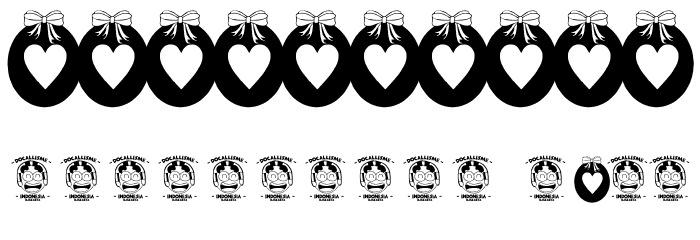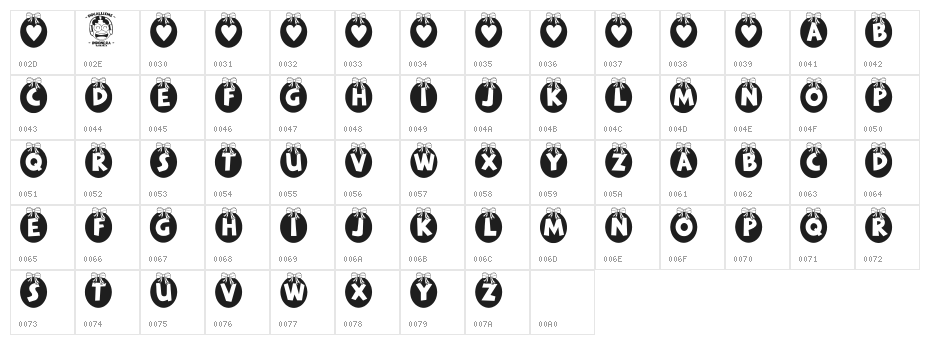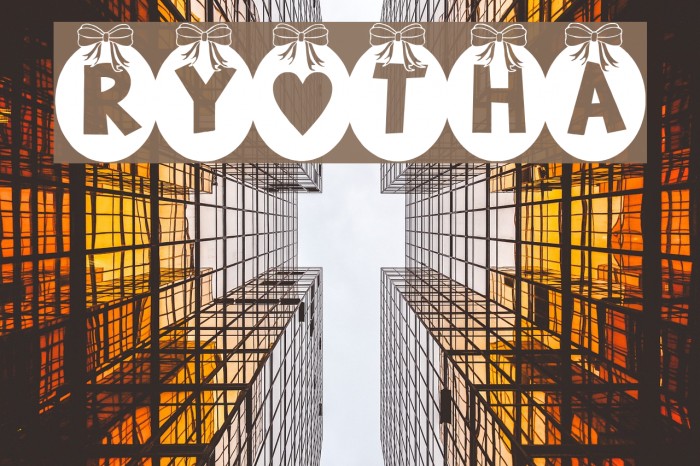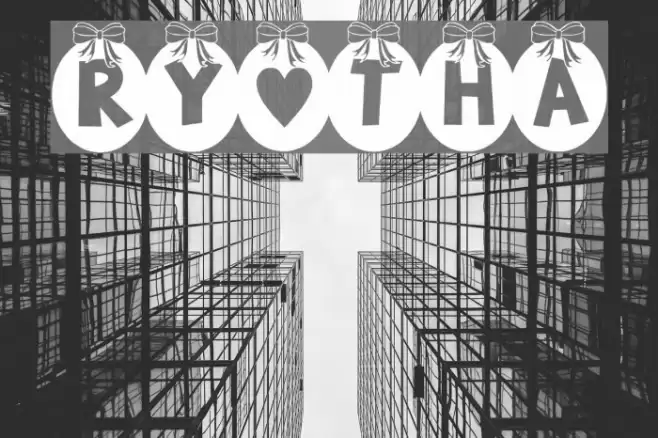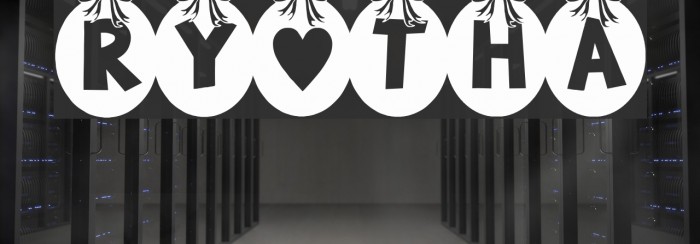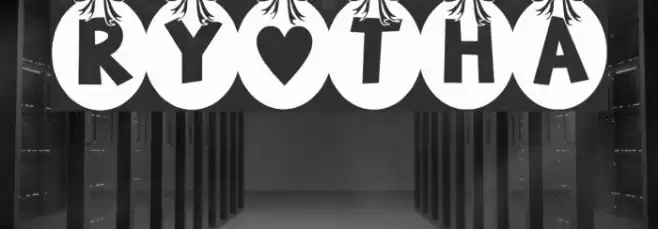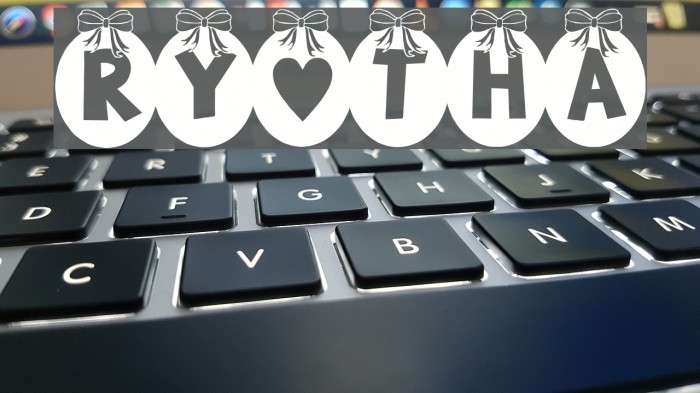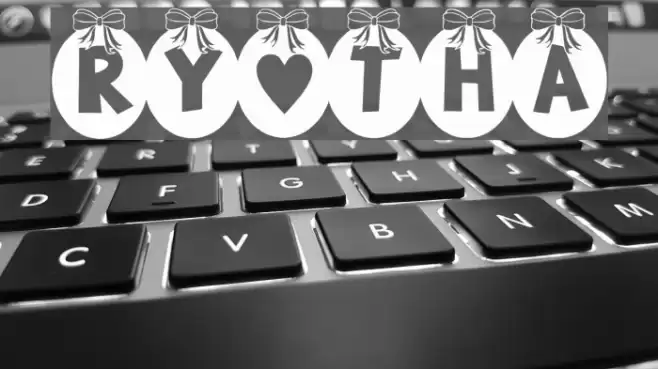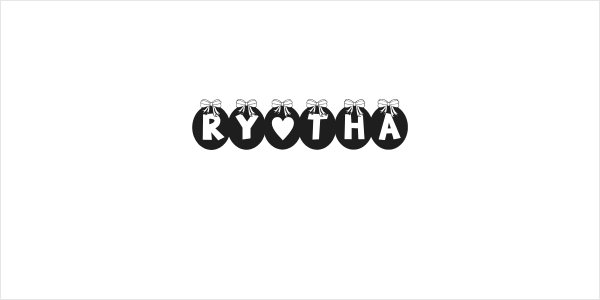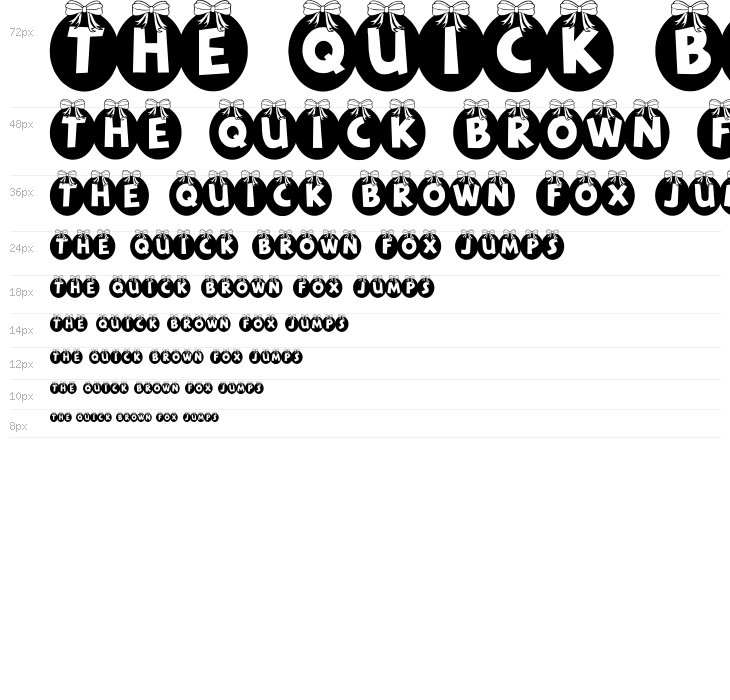
RY-THA Font
RY-THA Description
This decorative font features bold, uppercase letters encased in circular ornaments, each topped with a bow, giving it a festive and playful appearance. The letters are white against a black background, creating a striking contrast that emphasizes the whimsical design. The font lacks lowercase letters and numerals, focusing solely on uppercase characters and a few heart symbols. The overall style is unique and eye-catching, suitable for projects that require a touch of charm and celebration.
| Proposed Projects | Ideal for holiday cards, festive banners, children's party invitations, and playful branding. |